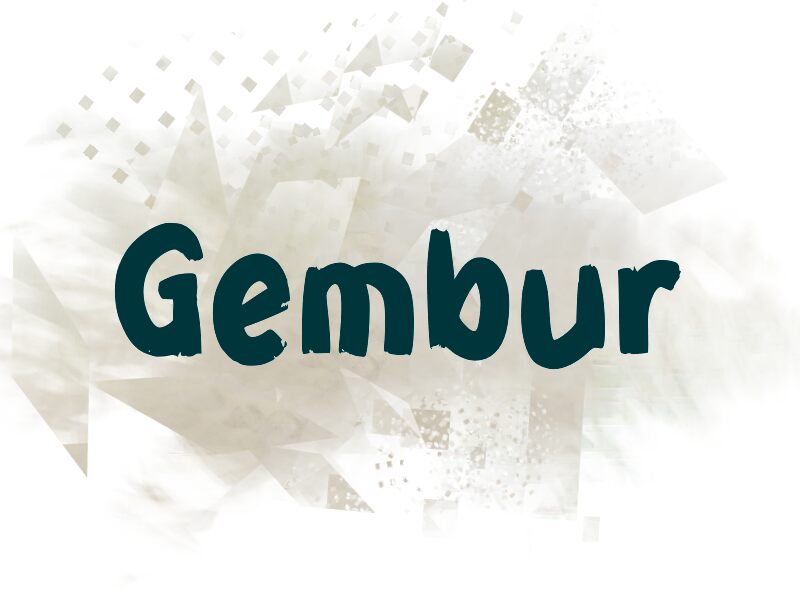
Gembur
Gembur, crafted by the imaginative designer wep, captivates with its bold brush strokes and dynamic charm. This striking font exudes an energetic and tactile essence, enhancing any design with its raw, hand-painted style. The robust weight of Gembur ensures that it stands out prominently, making it ideal for headers, branding materials, or eye-catching posters.
Its artistic flair lends itself perfectly to creative projects that demand attention and a touch of personality. Whether breathing life into digital graphics or adding flair to print media, Gembur’s vibrant aesthetic makes it a versatile choice for designers seeking to make a memorable impact.